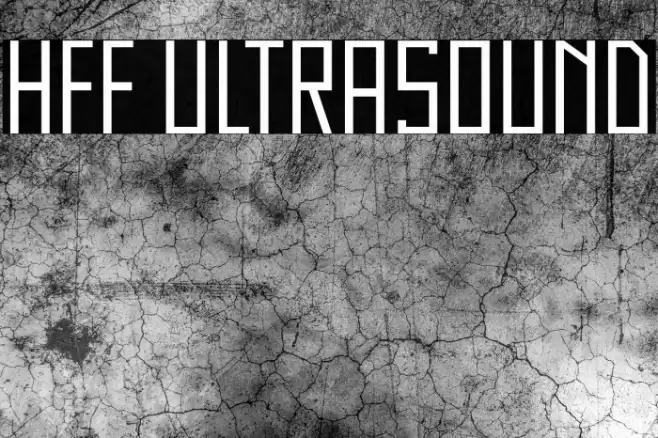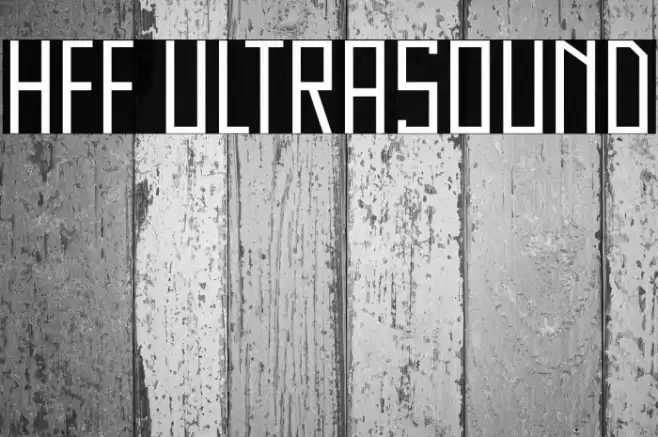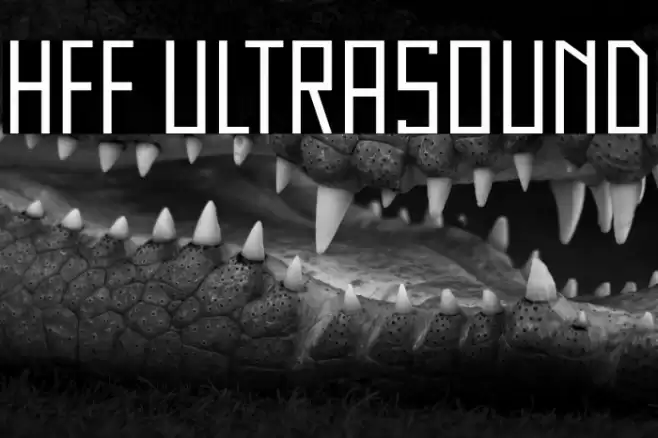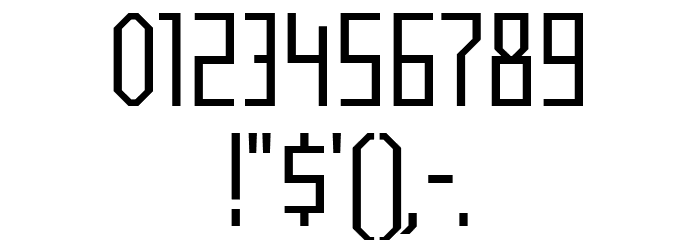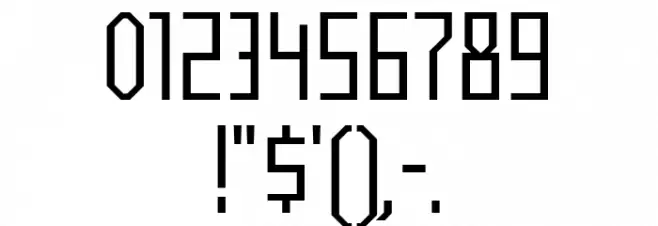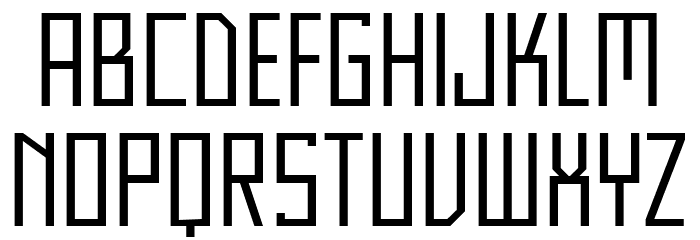
HFF Ultrasound Font
HFF Ultrasound Description
This font features a geometric and angular design with a futuristic and digital aesthetic. The characters are constructed with straight lines and sharp angles, giving it a mechanical and structured appearance. The uppercase and lowercase letters maintain a consistent height, contributing to a uniform look. The numbers and special characters follow the same design principles, ensuring coherence across all glyphs. This font is ideal for projects that require a modern and tech-inspired feel, such as digital interfaces, technology branding, or sci-fi themed designs.
A geometric, angular font with a futuristic and digital aesthetic from Futuristic fonts.
- Proposed Projects: Ideal for technology branding, digital interfaces, sci-fi themed designs, and modern posters.
- Use Case: Logos, Headlines, Posters